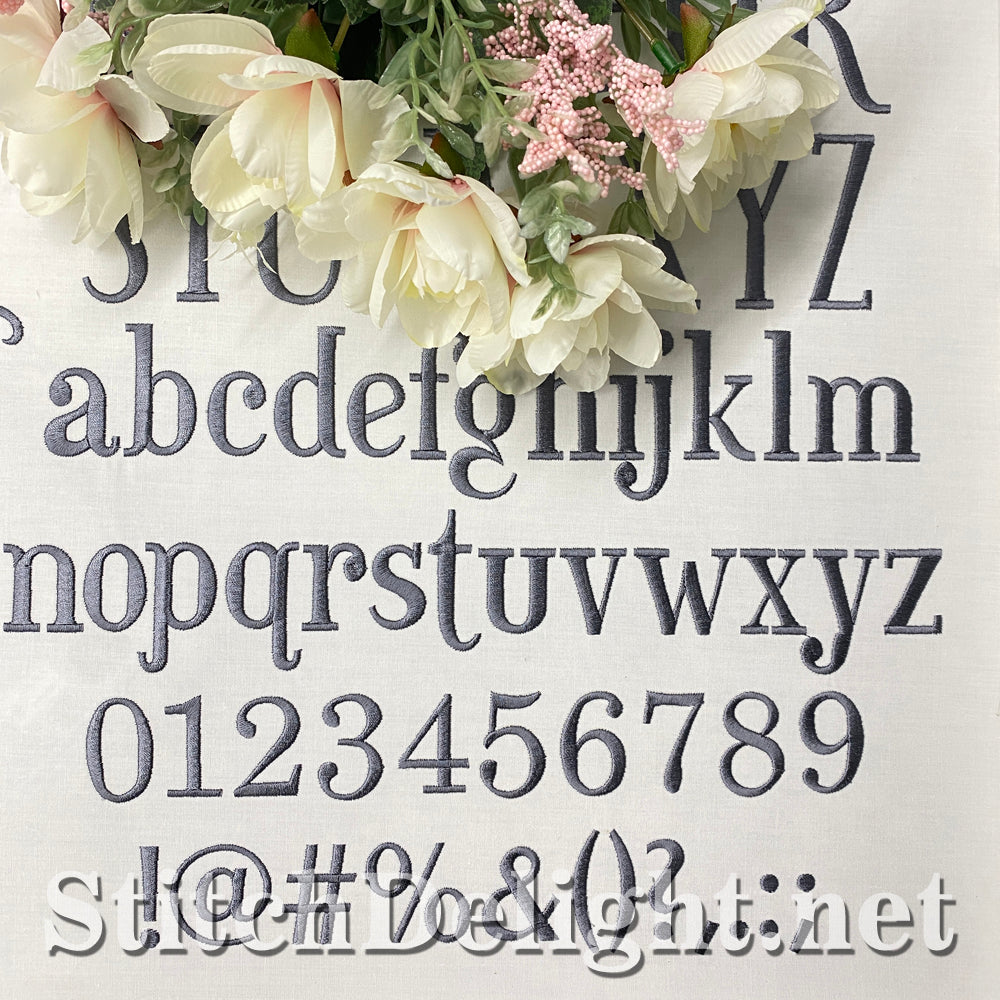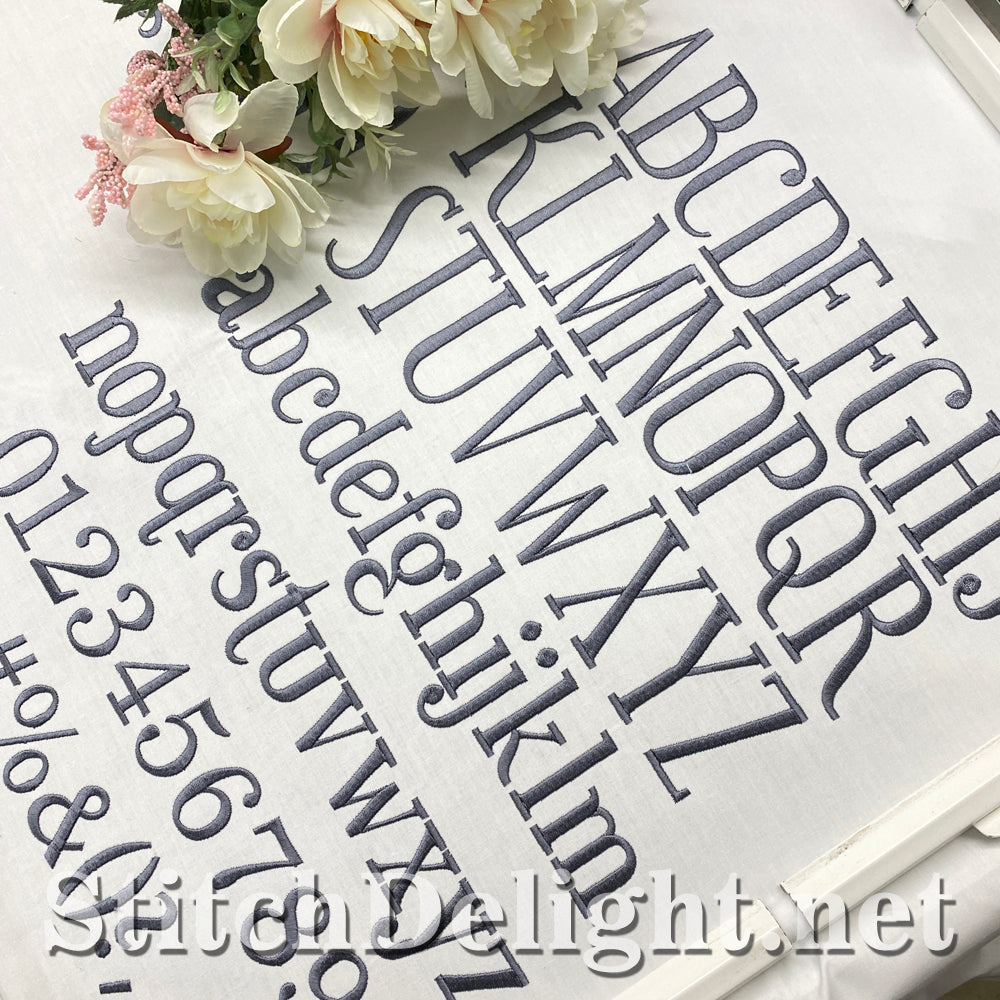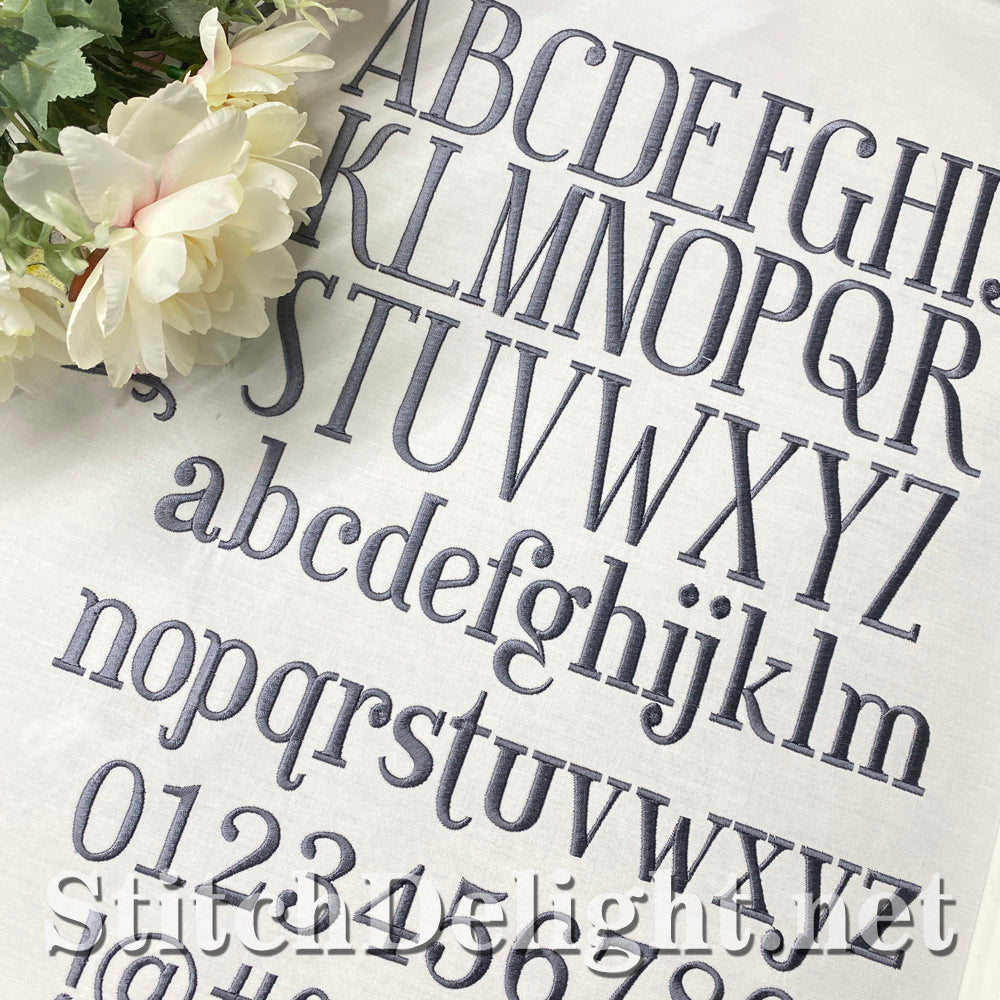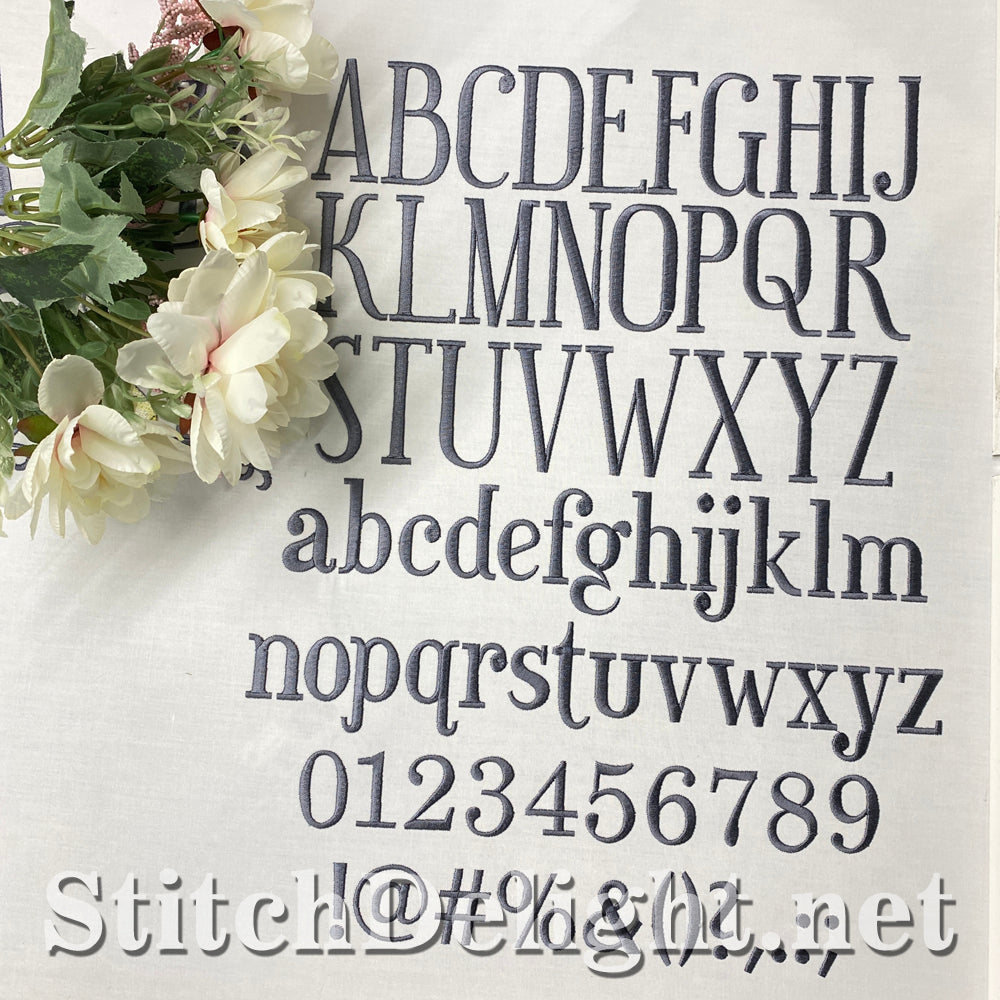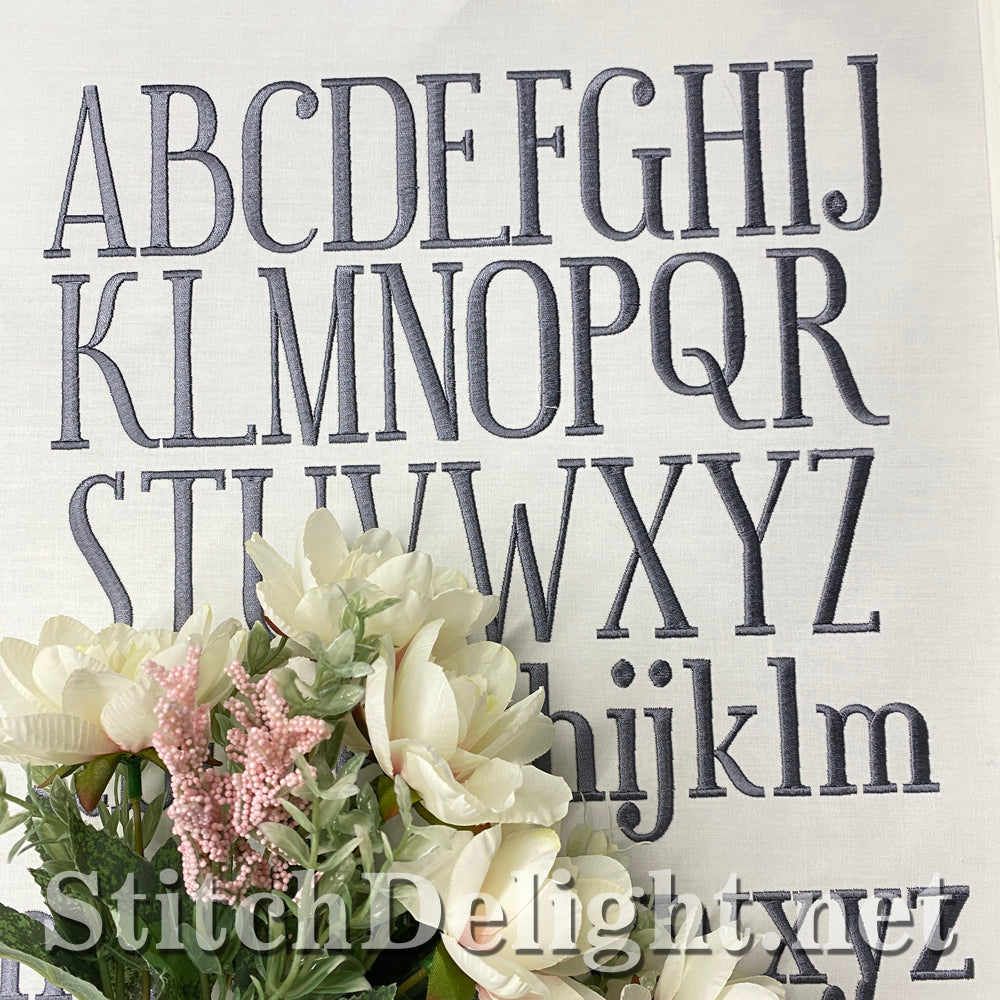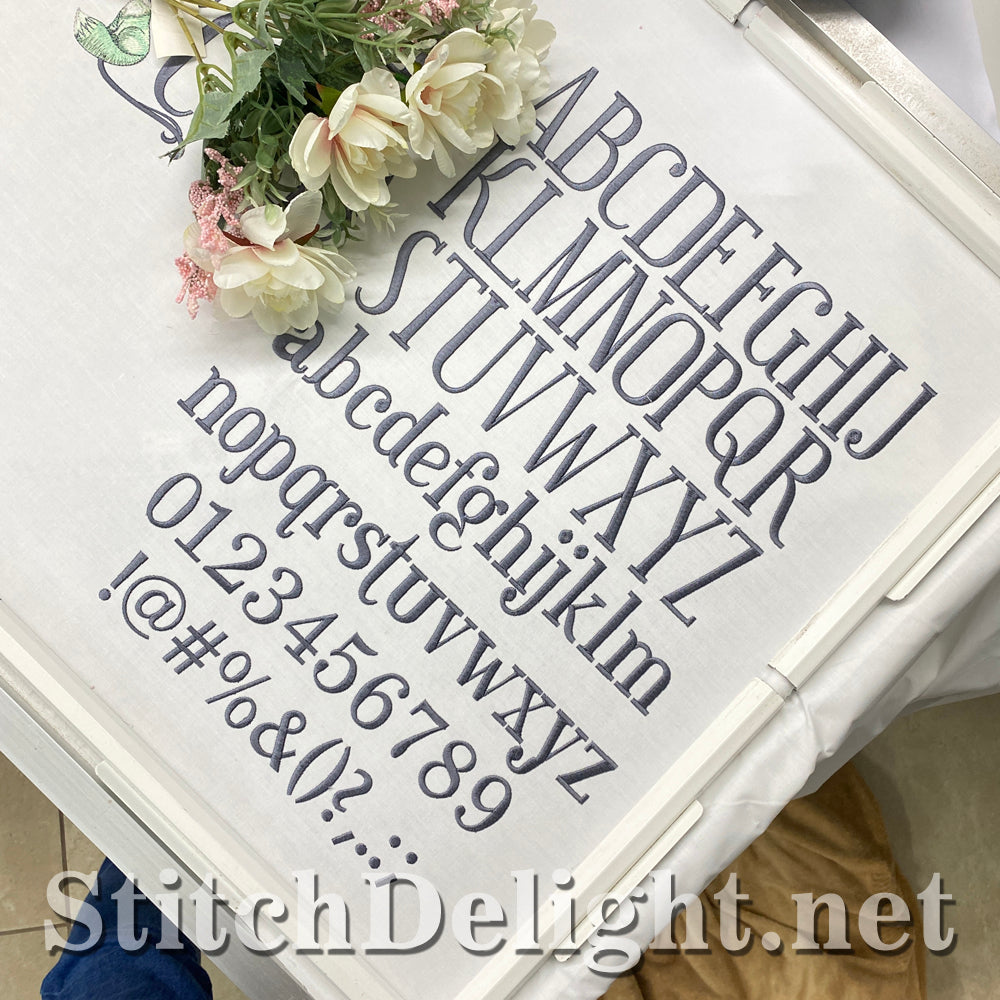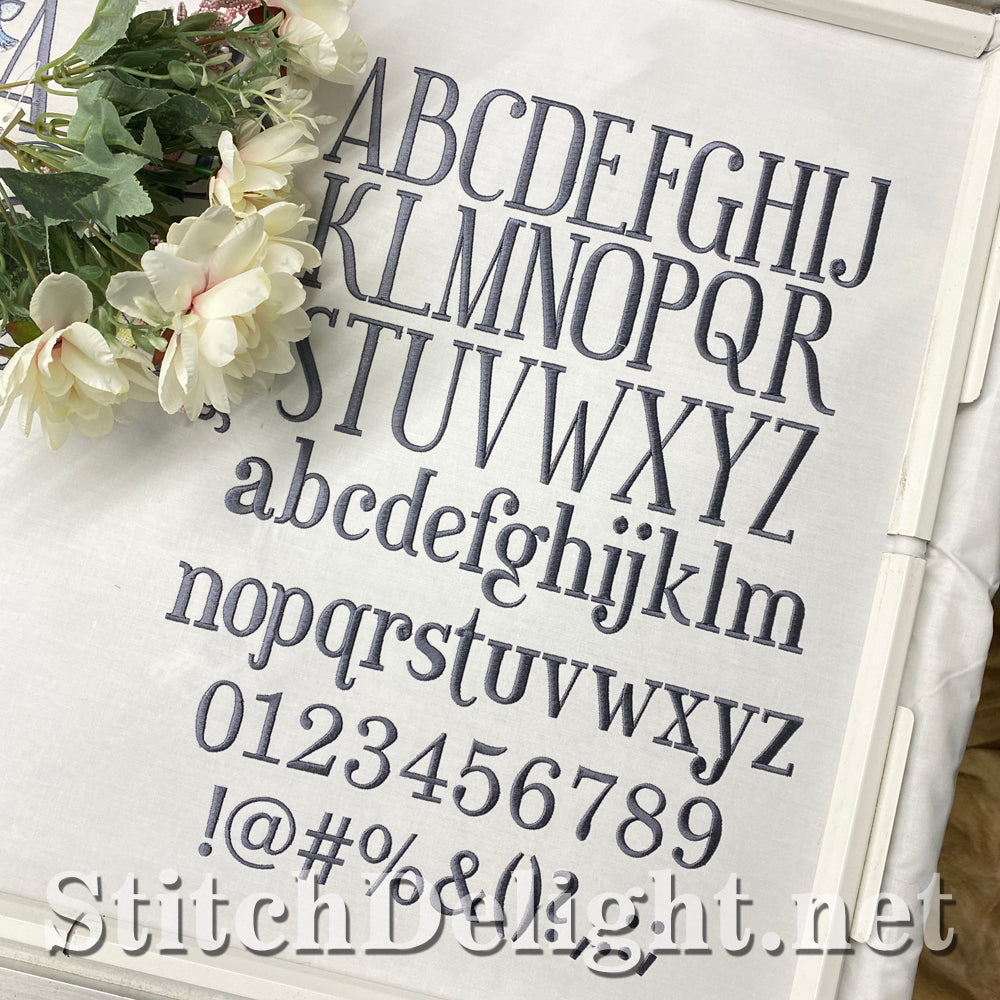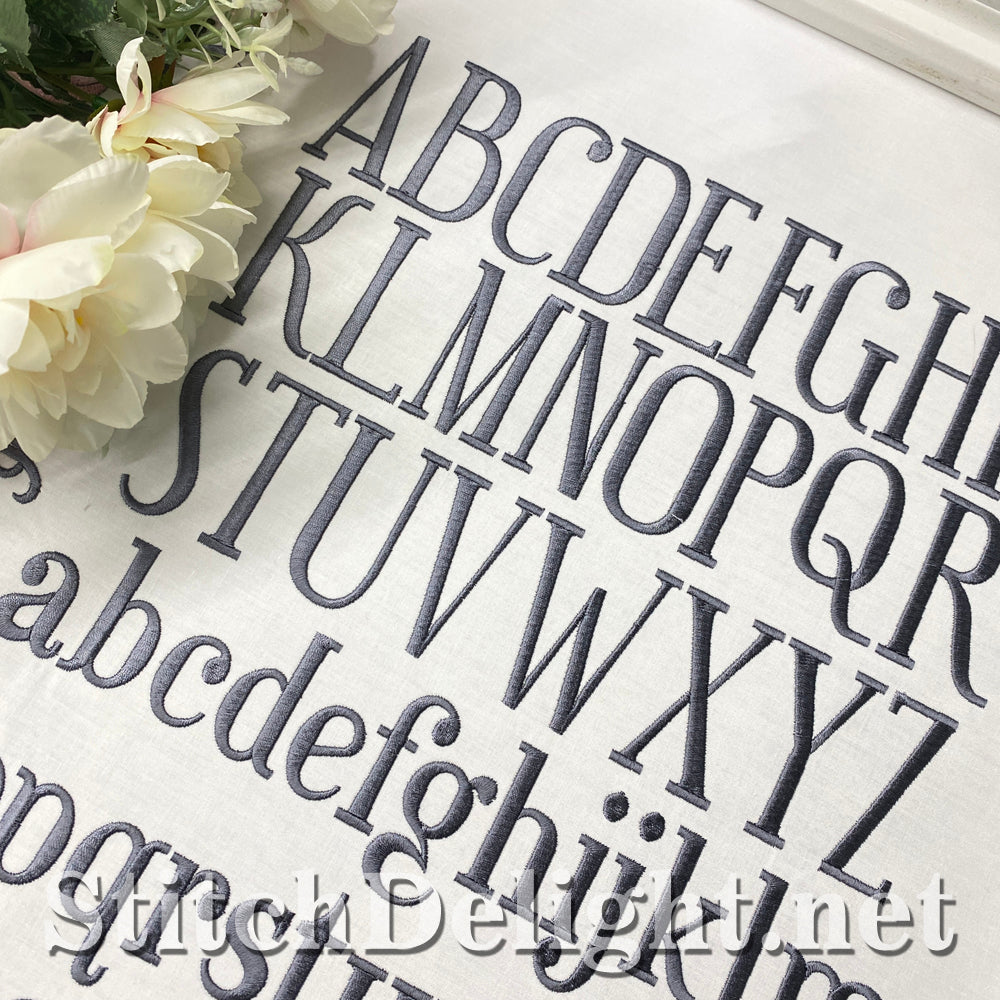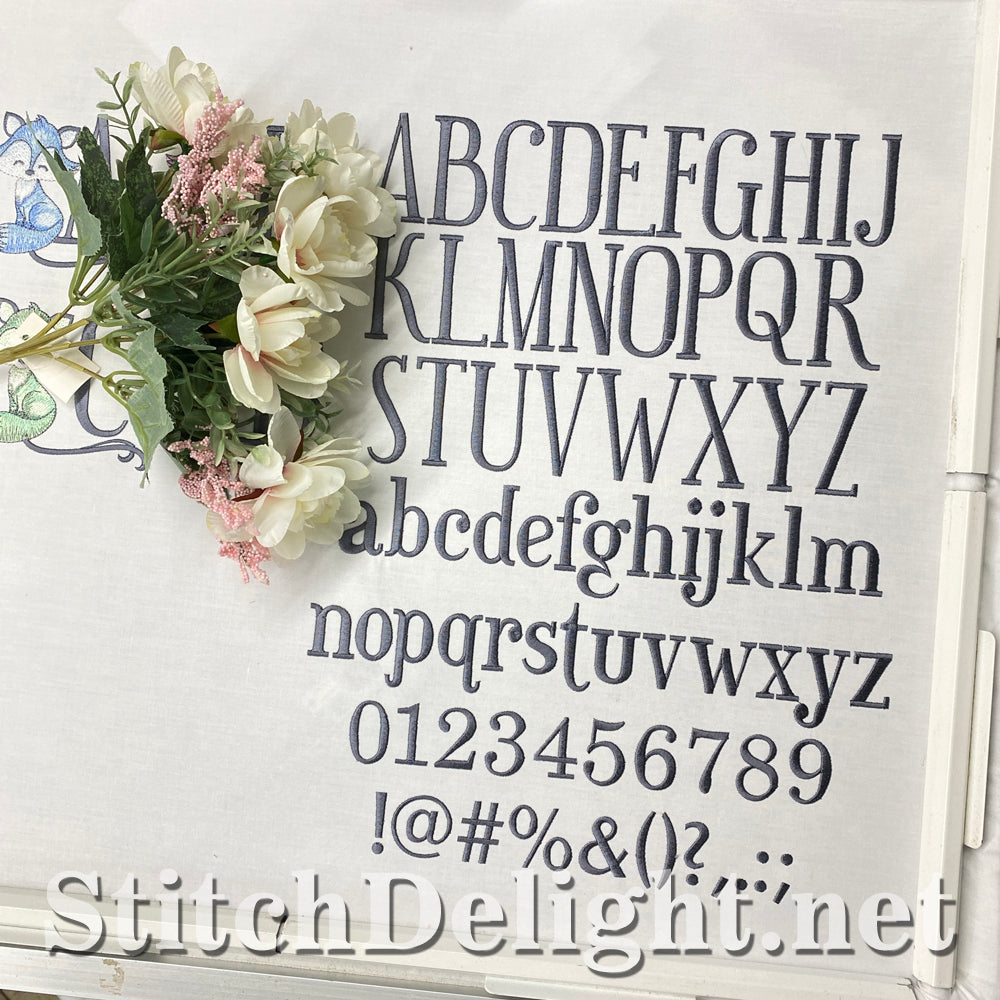
SDS5414 Wilding Font
A clear and concise font to match the stunning Finley Foxy Collectors Font. This font has an average height of 2" for capital letters and 1.6" for lowercase letters. This font set includes Uppercase,Lowercase letters as well as Numbers and symbols. Check out the design sizes PDF for more info on what symbols are included.